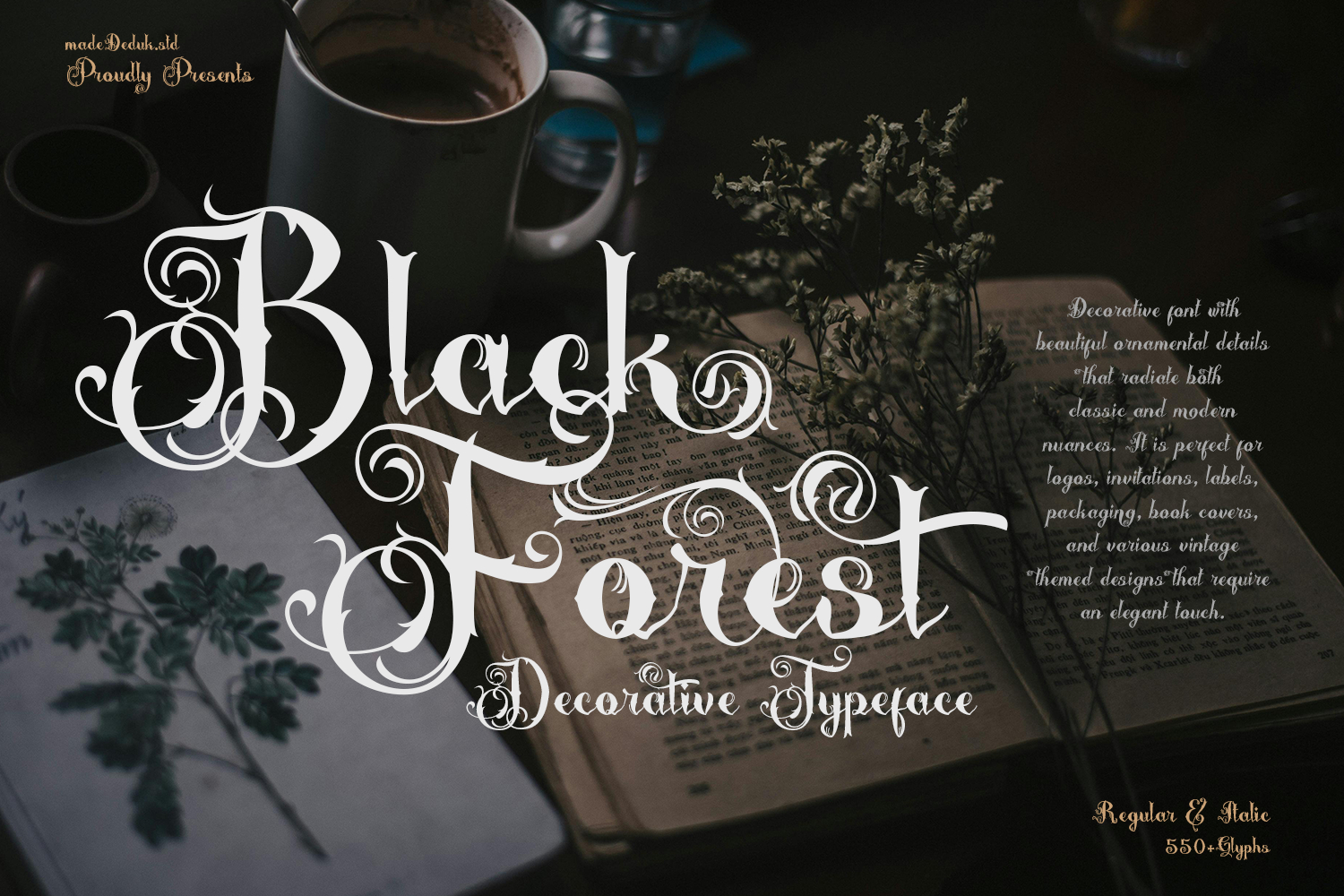
Black Forrest - Decorative Typeface
Introducing Black Forrest, a decorative font that showcases exquisite ornamental details, blending classic and 1900s influences with old fancy lettering and vintage script. This font is ideal for a variety of display purposes in your product design, especially if you seek a vintage and classic aesthetic that exudes elegance and luxury. Perfect for applications such as book covers, product labels, logo badges, drink bottles, tattoo shops, coffee shops, branding products, wedding invitations, and more.